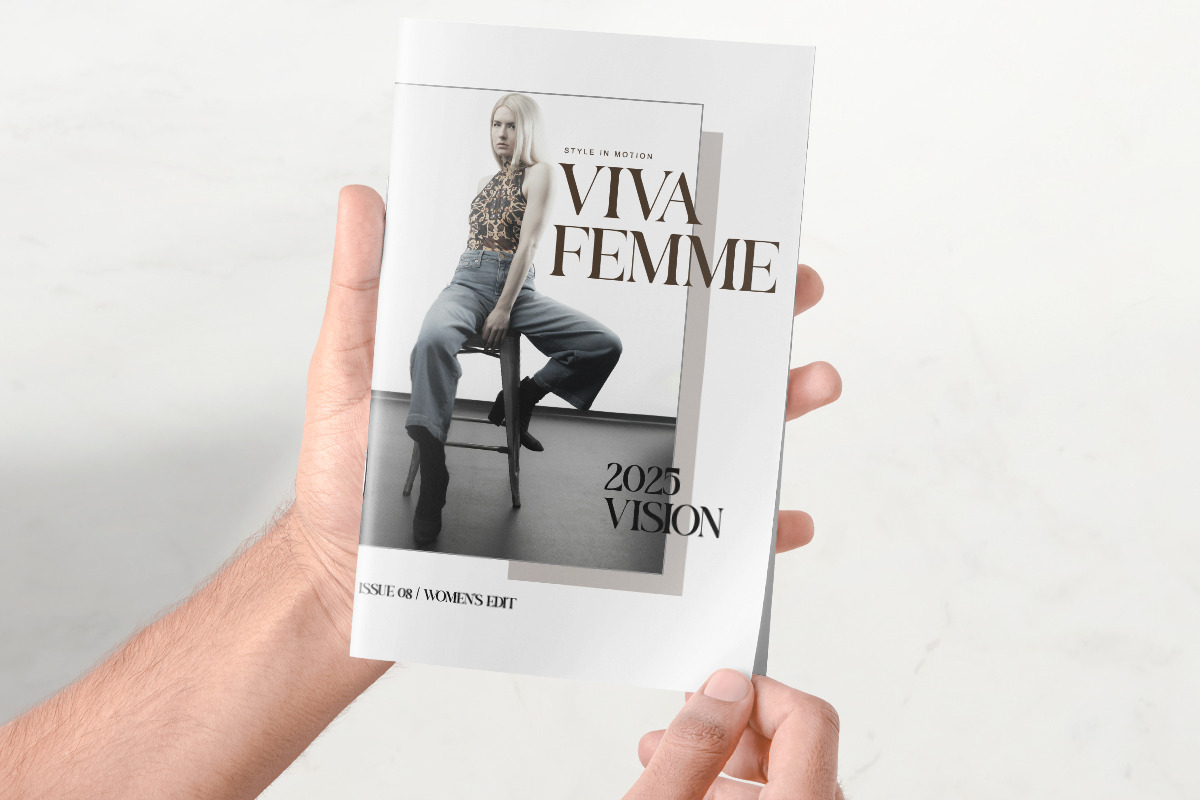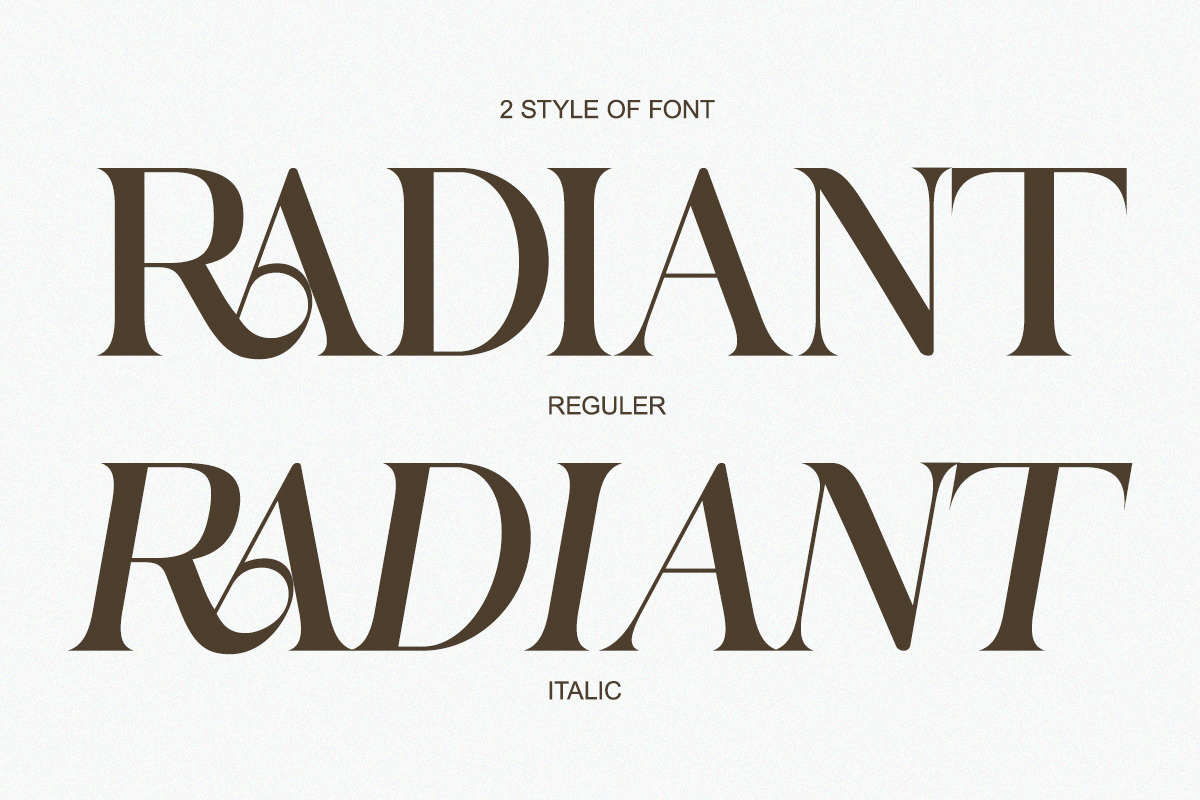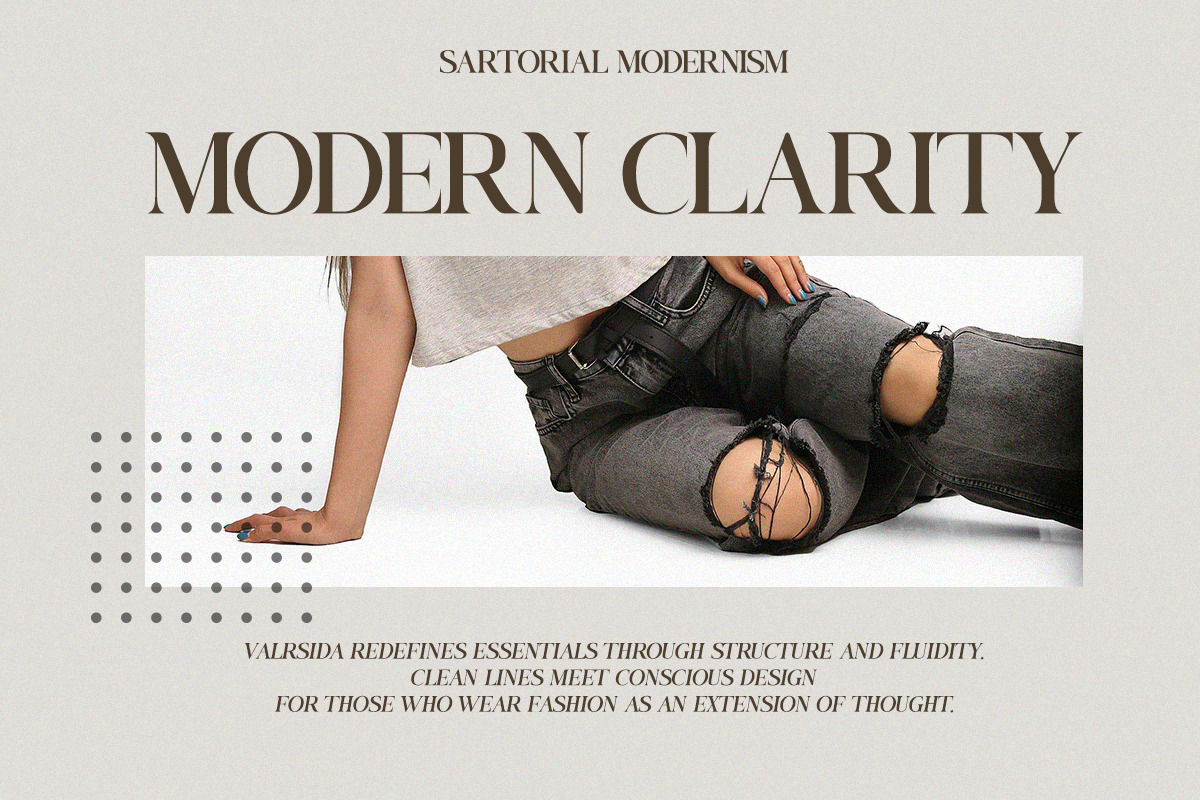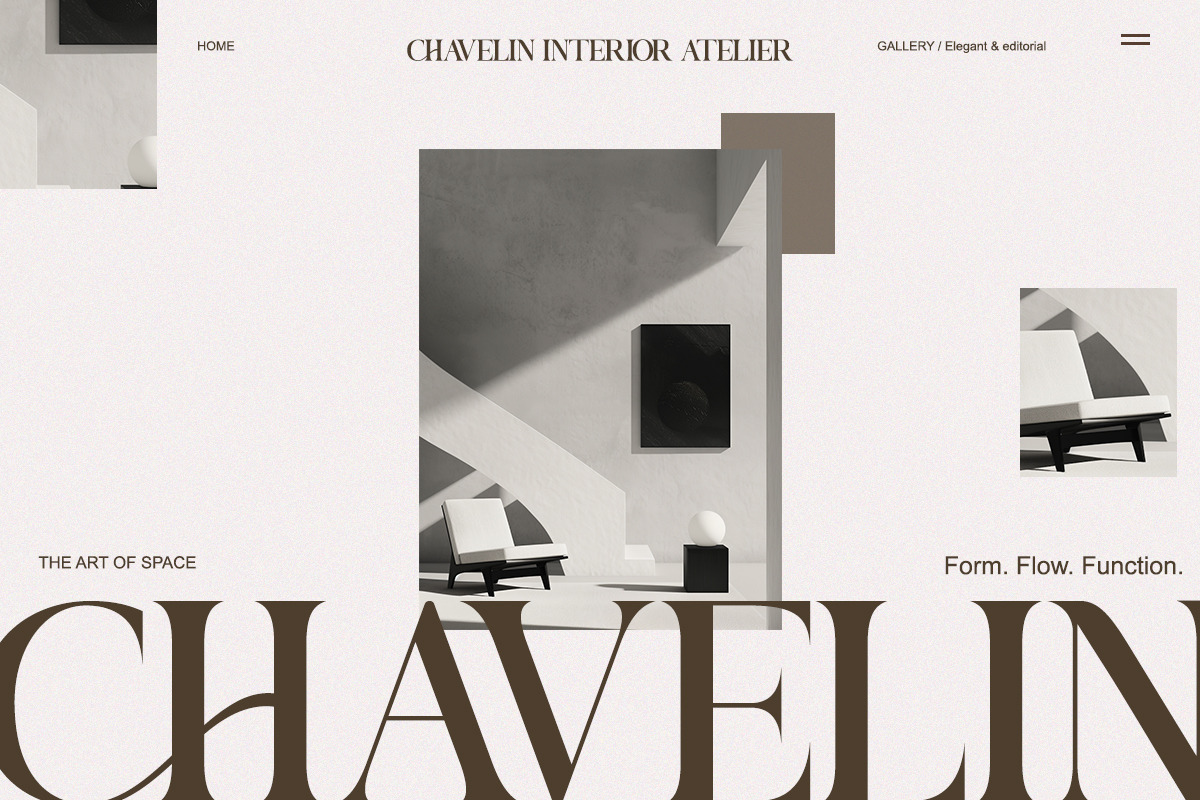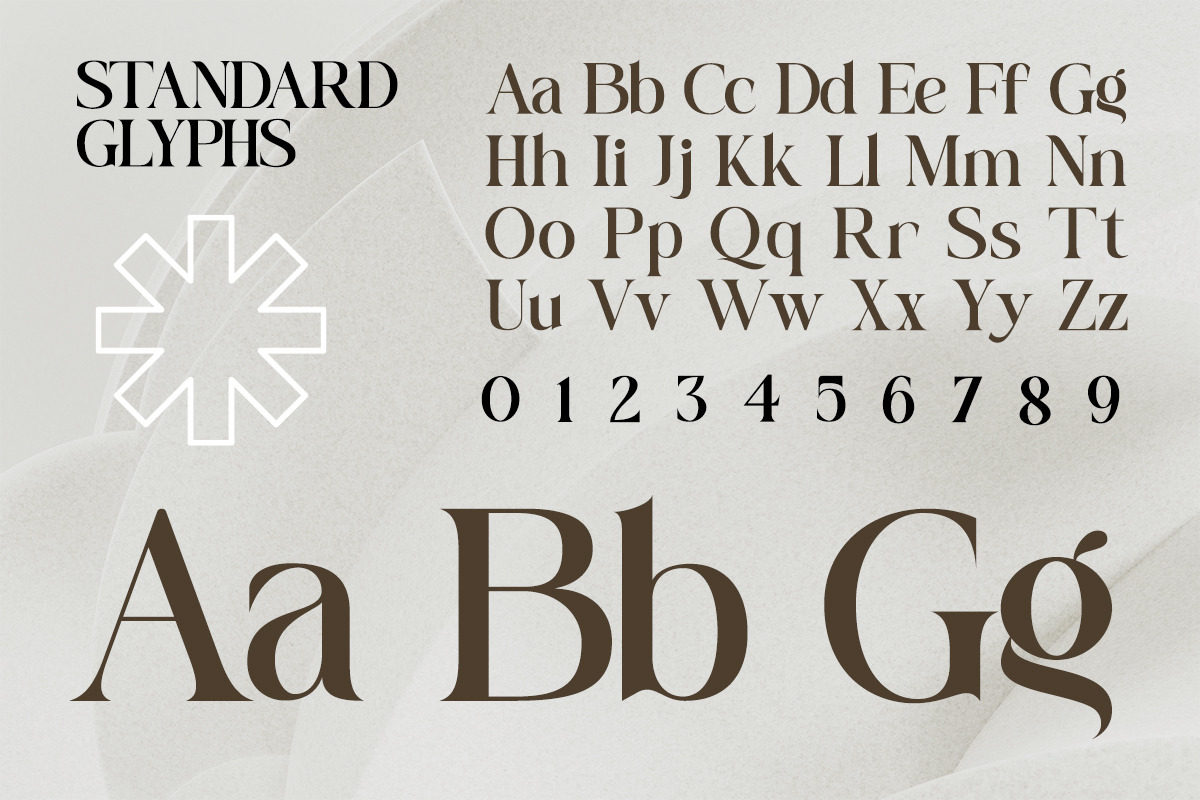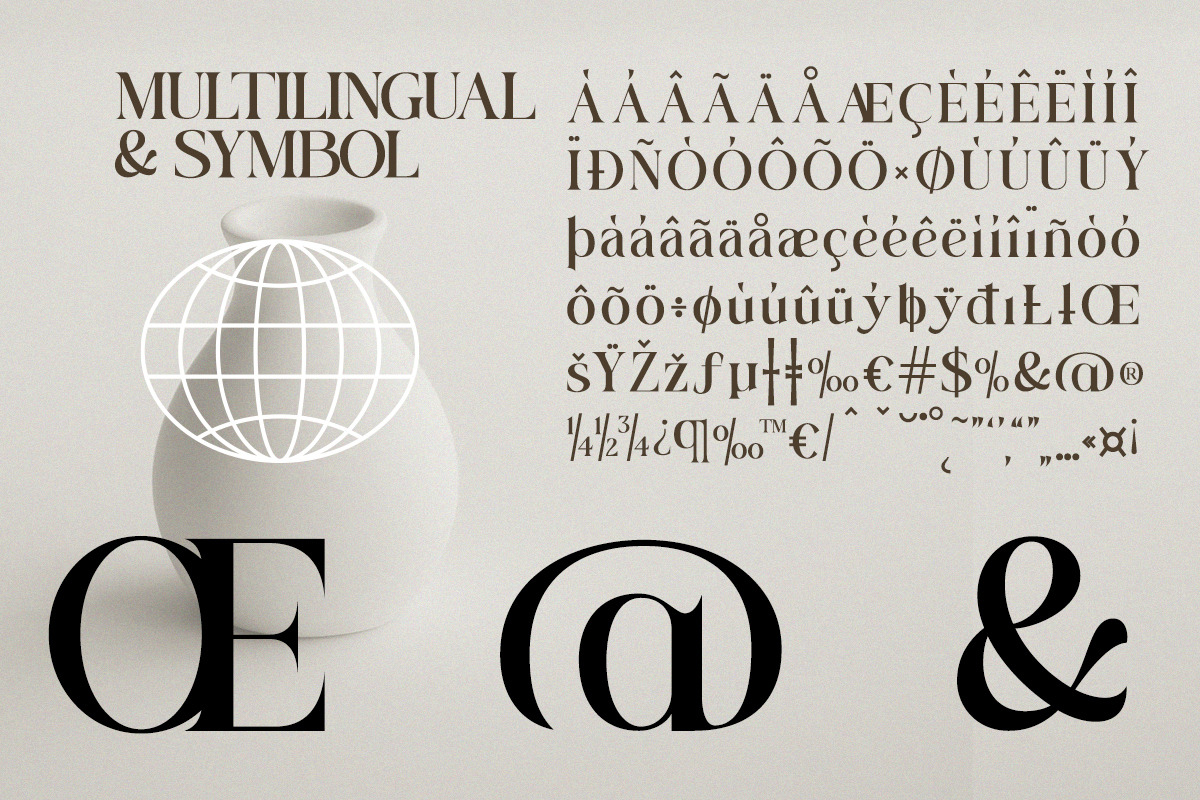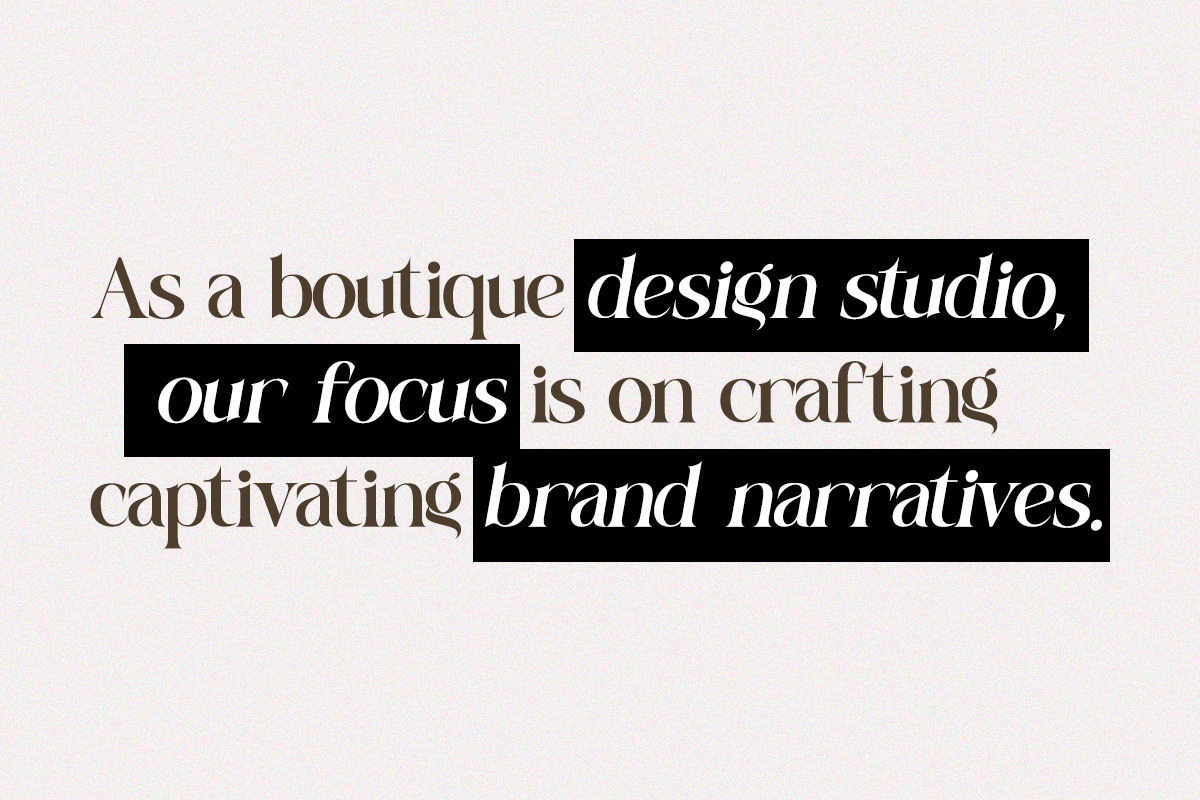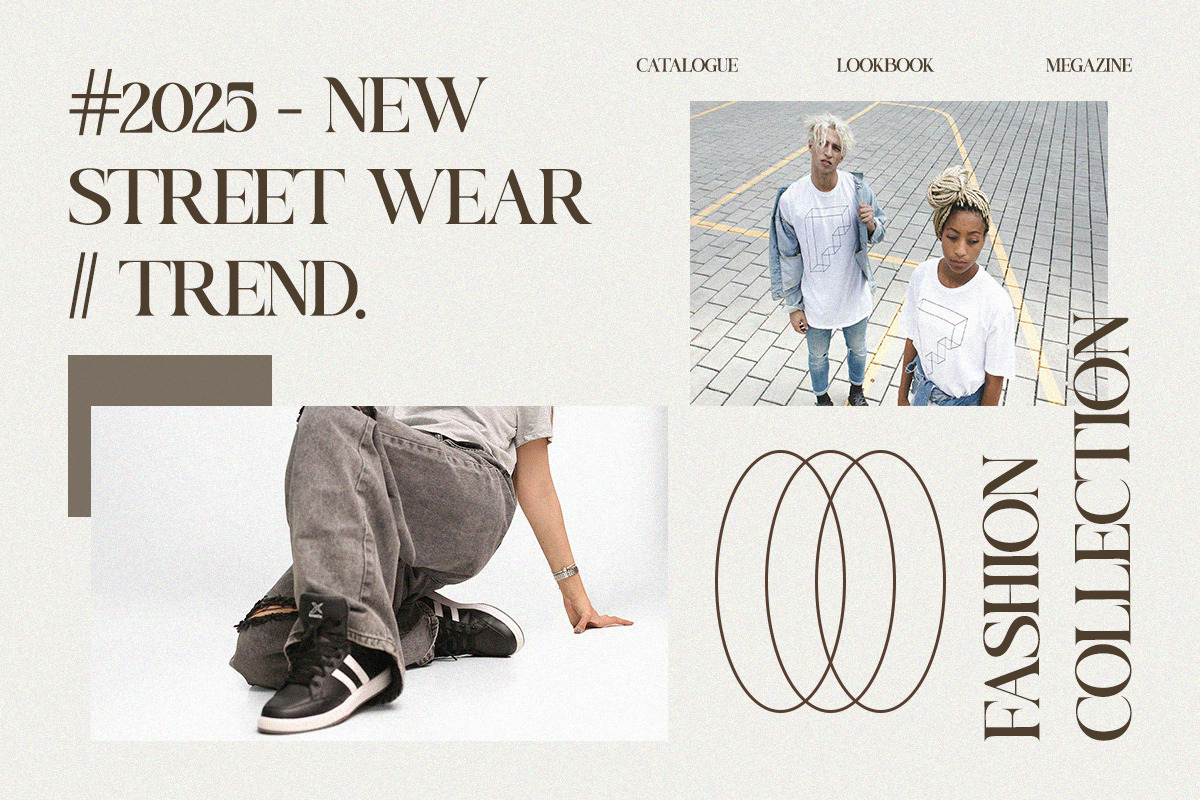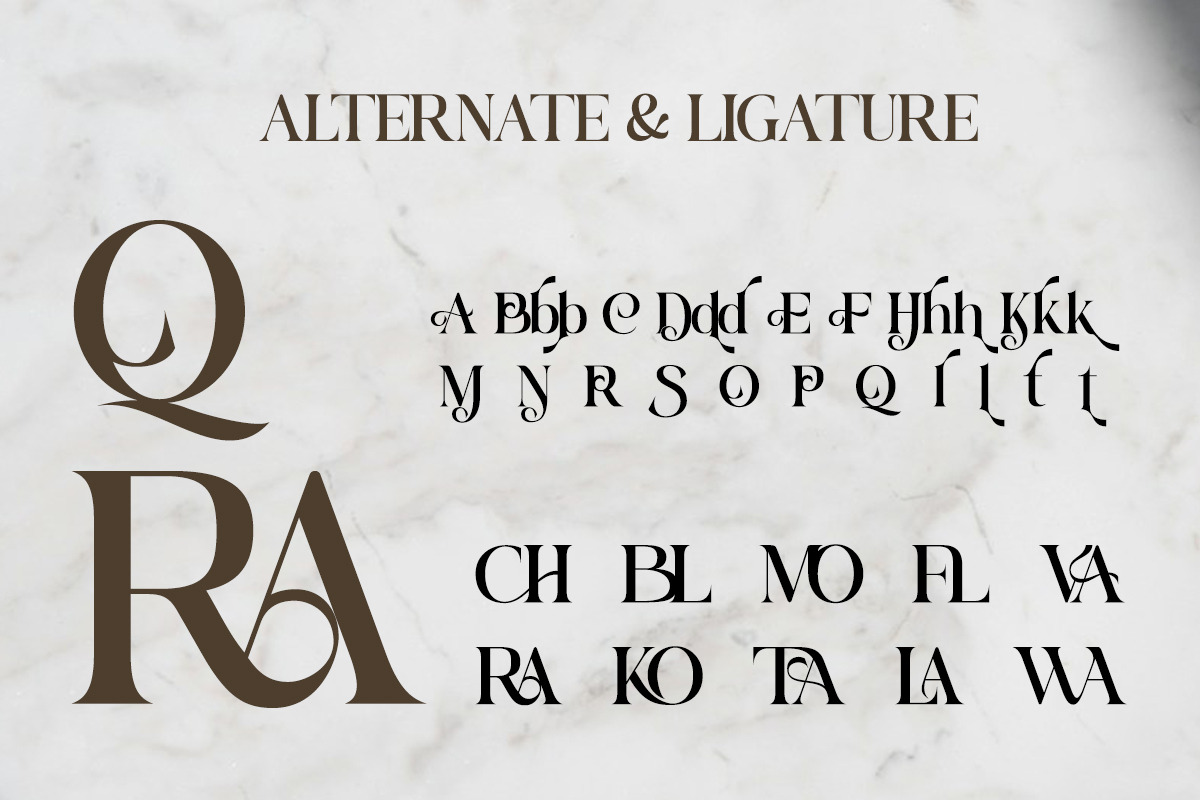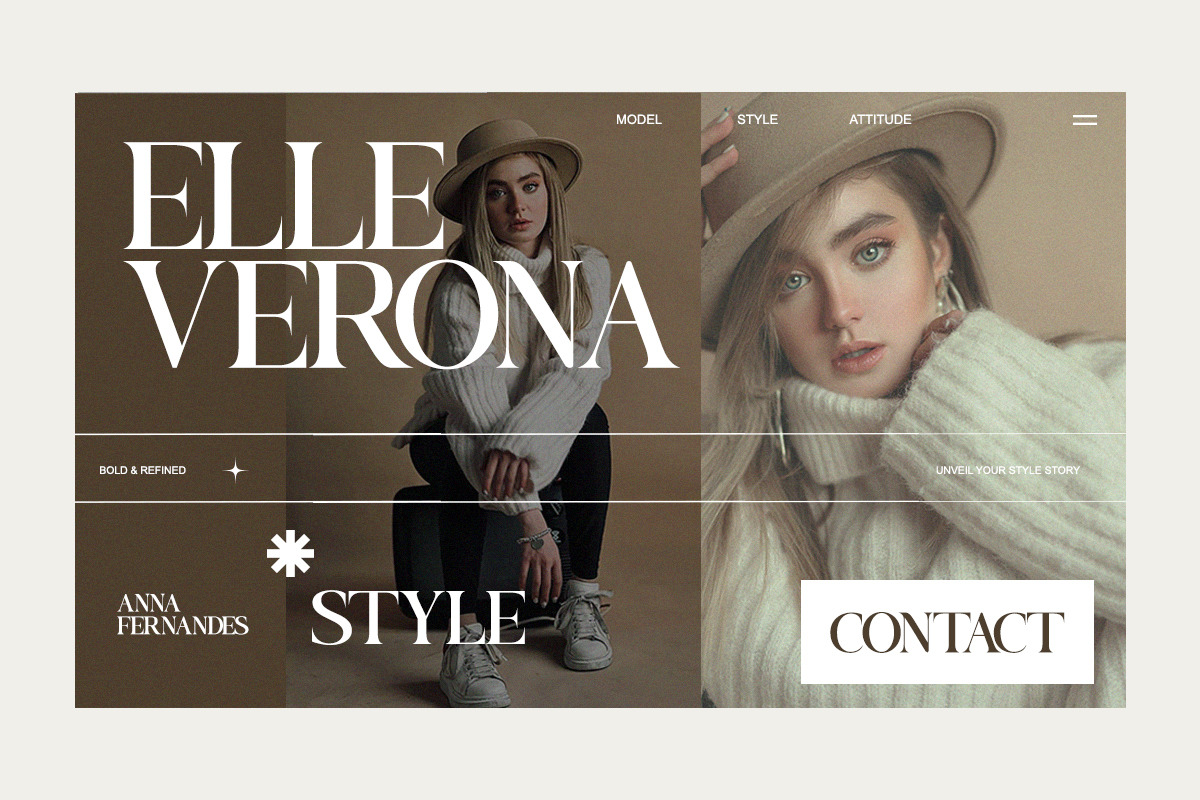
Belatic - Modern Elegant Display
Belatic is a refined display serif font designed with bold elegance and timeless sophistication.
Featuring sharp serifs, high contrast details, and graceful curves, Belatic elevates your design into a luxurious, fashion-forward statement. Perfect for branding, logos, magazines, packaging, and editorial projects, this font combines modern class with versatile usability.
Belatic isn’t just a typeface—it’s a statement of style, creativity, and refined aesthetics.
- Modern elegant serif display
- Regular & Italic
- Stylish alternates & ligatures
- Fashion branding & logos
- Editorial headlines & magazines
- Luxury packaging & identity
- Wedding invitations & posters
- Website headers & statement typography
- Creative advertising campaigns